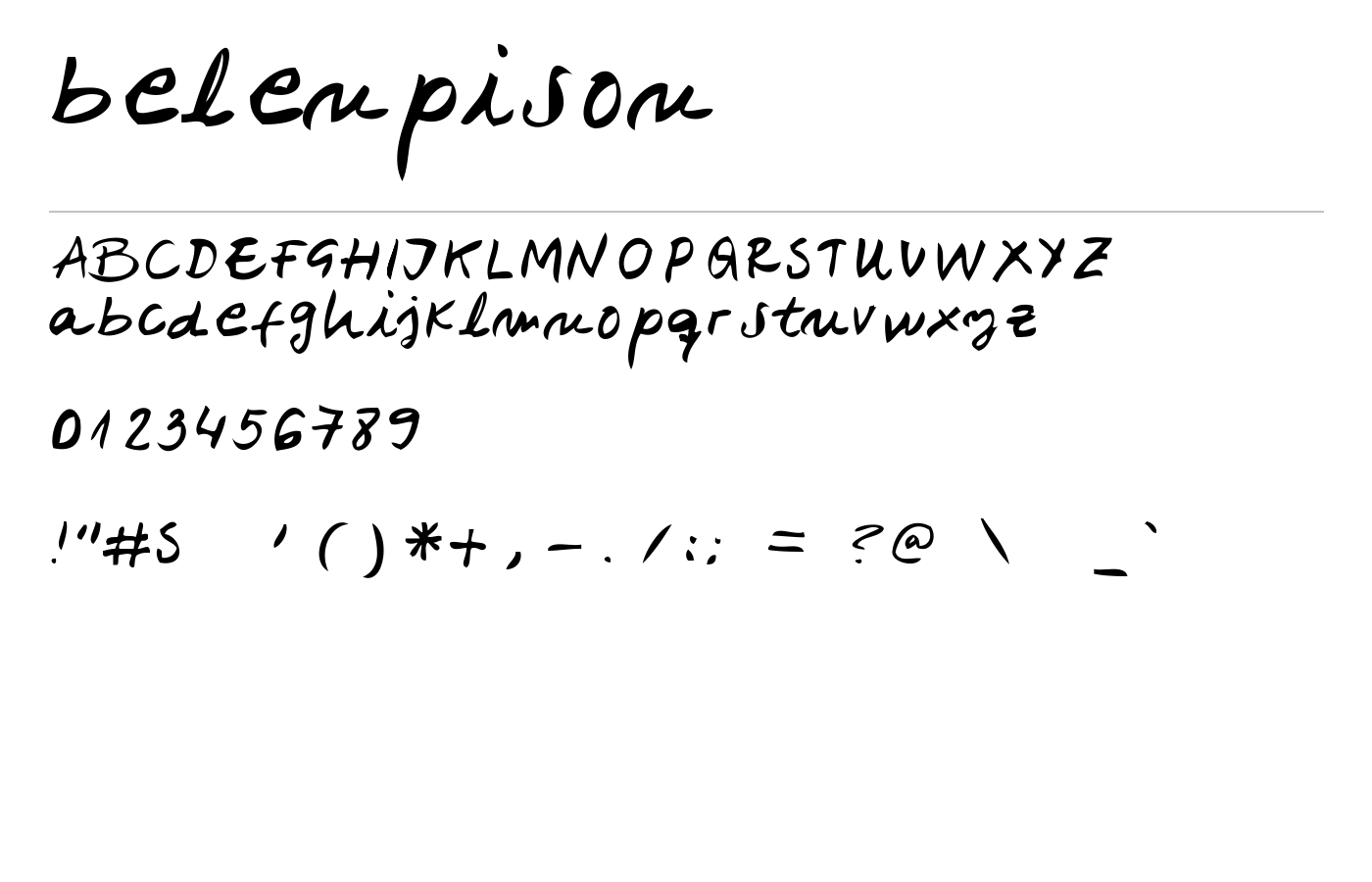
Belenpison is a casual, handwritten script font that features a lively, organic style with medium weight and moderately tall x-height. Its letterforms have a fluid, slightly irregular stroke, giving it a personal and approachable feel, perfect for creative projects that seek an informal, friendly tone. This font works well for branding, invitations, and editorial designs where a warm, hand-crafted touch is desired.
belenpison Font
About belenpison Font